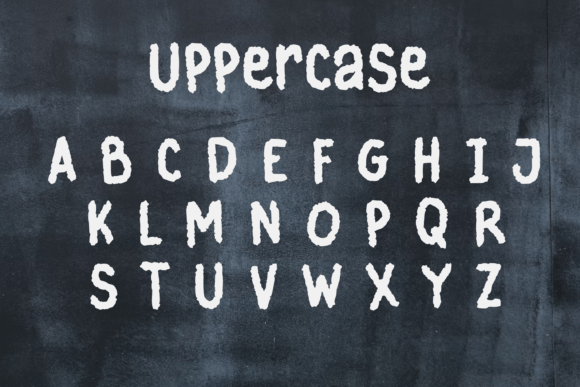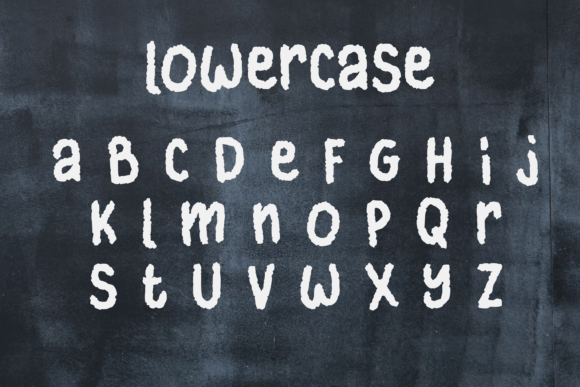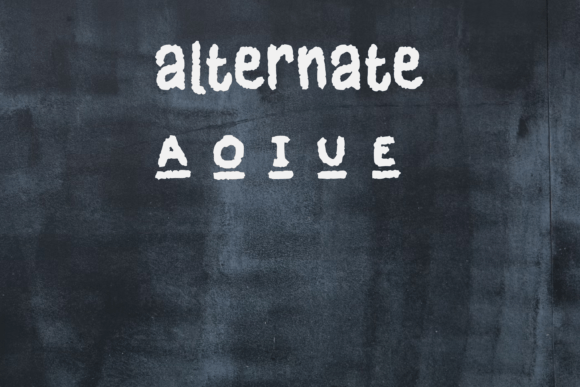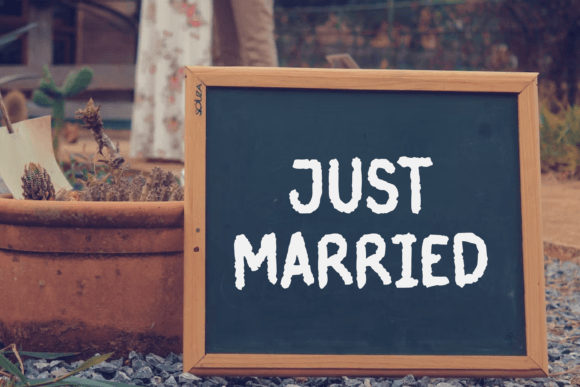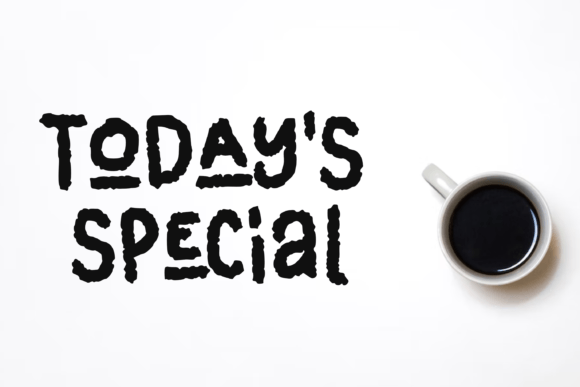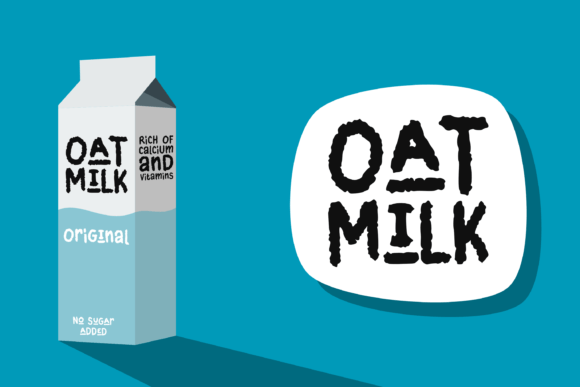
Introducing Chalky Chalk Font: The Ultimate Display Font for Creative Designs
Are you looking for a font that can add a touch of playfulness and friendliness to your designs? Look no further than Chalky Chalk Font! Inspired by the classic writing of chalk on a blackboard, this adorable display font is perfect for crafters, digital designers, and anyone looking to add a dash of whimsy to their creations.
The Charm of Chalky Chalk Font
Chalky Chalk Font is a cute, fun, and friendly display font that captures the essence of traditional chalk writing. With its natural, rough texture, this font brings a sense of nostalgia and warmth to any design. The imperfect, hand-crafted feel of Chalky Chalk makes it perfect for creating unique and eye-catching designs that stand out from the crowd.
Whether you’re a seasoned designer or a crafty DIY enthusiast, Chalky Chalk Font is an excellent addition to your creative toolkit. This versatile font can be used for a wide range of projects, including:
• Crafting: Add a personal touch to your handmade cards, gift tags, and scrapbook pages with Chalky Chalk Font.
• Digital designing: Use Chalky Chalk to create engaging social media graphics, blog headers, and website elements.
• Presentations: Make your presentations more engaging and fun with Chalky Chalk Font.
• Greeting card making: Create one-of-a-kind greeting cards for special occasions with this charming font.
What Makes Chalky Chalk Font Special?
So, what sets Chalky Chalk Font apart from other display fonts? Here are just a few reasons why designers and crafters love this font:
• Unique texture: Chalky Chalk Font features a distinctive, rough texture that mimics the look of traditional chalk writing.
• Playful feel: This font has a lighthearted, friendly vibe that’s perfect for creating designs that appeal to a wide range of audiences.
• High versatility: Chalky Chalk Font can be used for a variety of design projects, from digital graphics to handmade crafts.
Tips for Using Chalky Chalk Font
To get the most out of Chalky Chalk Font, here are a few design tips to keep in mind:
• Pair with complementary fonts: Combine Chalky Chalk Font with clean, modern fonts to create visual interest and contrast.
• Experiment with colors: Try pairing Chalky Chalk Font with bright, bold colors to add an extra pop of personality to your designs.
• Keep it simple: Don’t be afraid to use Chalky Chalk Font on its own – its unique texture and playful feel can be enough to make a design stand out.
Get Creative with Chalky Chalk Font
In conclusion, Chalky Chalk Font is a one-of-a-kind display font that’s perfect for designers and crafters looking to add a dash of playfulness and friendliness to their creations. With its unique texture, playful feel, and high versatility, this font is sure to become a staple in your creative toolkit. So why wait? Download Chalky Chalk Font today and take your designs to the next level!